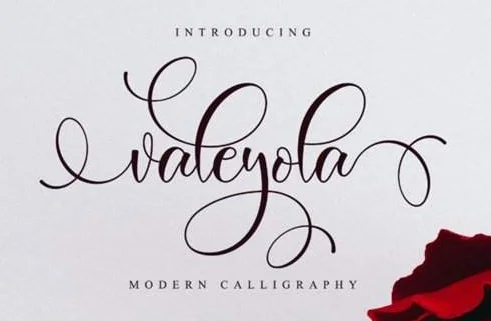
Valeyola Script Font
Valeyola Script Font is perfect for wedding invitations, romantic branding, elegant logos, beauty salon marketing, fashion boutique designs, feminine product packaging, greeting cards, social media quotes, photography signatures, luxury event materials, cosmetic labels, and any design project requiring a flowing and sophisticated handwritten aesthetic.
What makes Valeyola Script Font exciting is its graceful fluidity that captures the natural beauty of expert calligraphy with modern refinement. The font's sweeping curves and elegant connections between letters create a sense of effortless sophistication, making it ideal for brands emphasizing luxury, romance, and feminine elegance. Its authentic handwritten quality adds personal warmth while maintaining professional polish, allowing designers to create intimate yet distinguished visual experiences that resonate emotionally with audiences.
The Valeyola Script Font family typically includes uppercase and lowercase characters, numerals, punctuation marks, ligatures, stylistic alternates, and decorative swashes that enhance its calligraphic beauty.